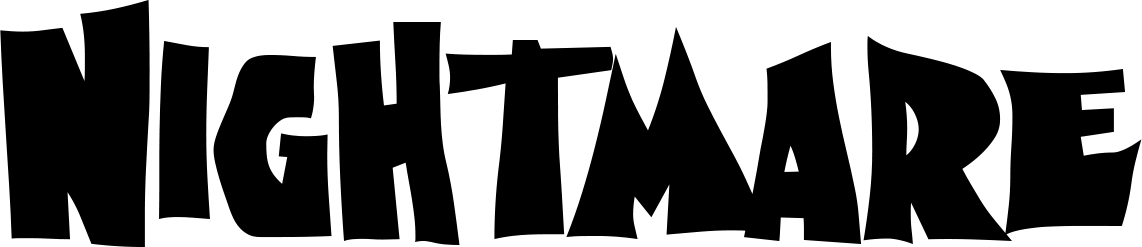
Nightmare AOE Font
Designed byAstigmatic One Eye Typographic Institute
A haunted font with extra-bold and weird lettering for your Halloween designs. The good thing about this all-caps font is that it’s not too dark, so it can also be used in a fun, school project.